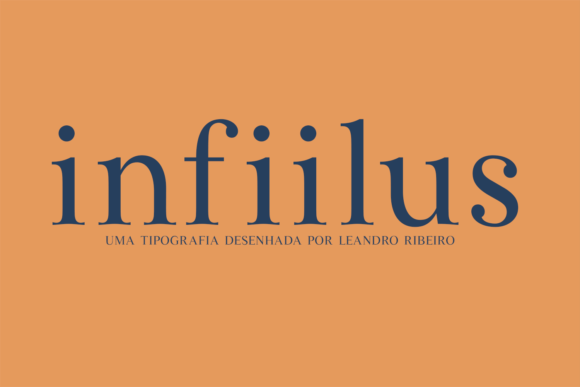
**Introducing Infiilus: The Key to Captivating Web Advertising**
In a digital world where attention spans dwindle and competition intensifies, your web presence must captivate and persuade from the first moment. Enter Infiilus, the serif font meticulously crafted to elevate your online advertising beyond the ordinary.
**A Font That Commands Attention**
Infiilus is not just a font; it's a magnetic force that draws the eye and holds it captive. Its elegant curves and graceful lines create a visual symphony that captivates the reader, making every word sing. Whether you're crafting compelling ad copy or designing eye-catching banners, Infiilus ensures your message will stand out in a sea of sameness.
**A Font That Builds Trust**
In the realm of online advertising, trust is paramount. Infiilus embodies this trust through its inherent reliability and sophistication. The serif style evokes a sense of tradition and authority, while the clean lines and balanced proportions convey a modern and trustworthy aesthetic. With Infiilus, you can create advertisements that inspire confidence and build lasting connections with your target audience.
**A Font That Drives Conversions**
Infiilus is not just visually stunning; it's designed to drive results. Its high legibility and optimal spacing allow for seamless reading, ensuring that your message is absorbed quickly and efficiently. By creating a captivating and effortless reading experience, Infiilus increases the likelihood of conversions, turning website visitors into loyal customers.